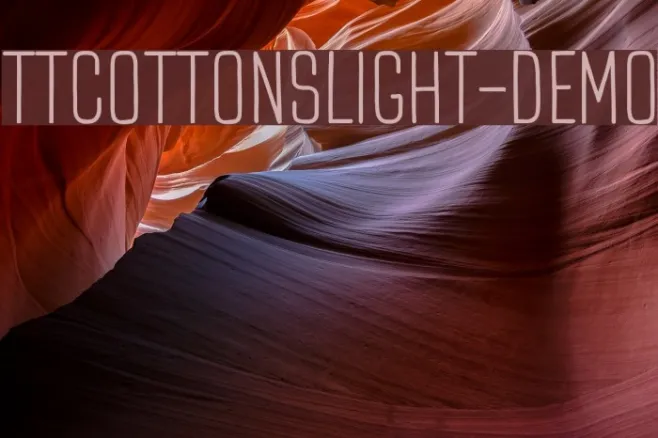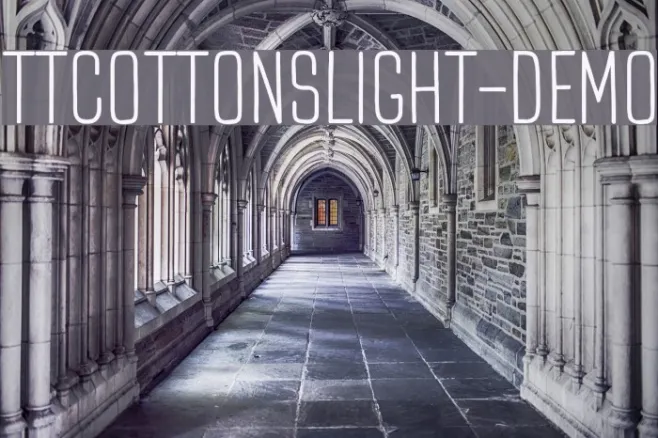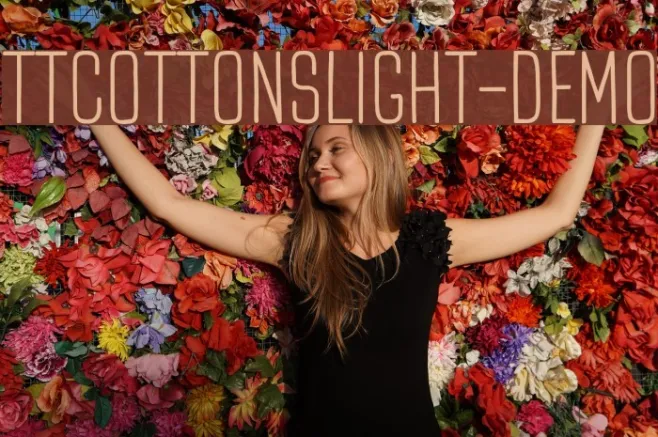
TTCottonsLight-DEMO Font
TTCottonsLight-DEMO Description
This font features a clean and modern sans-serif design with a light weight, making it ideal for a variety of applications. The characters are tall and narrow, giving it an elegant and sophisticated appearance. The uniform stroke width and minimal contrast contribute to its sleek and contemporary style. The spacing between characters is normal, ensuring readability while maintaining a refined look. This font is versatile, suitable for both digital and print media, and can be used effectively in branding, advertising, and editorial design.
| Proposed Projects | Ideal for branding, advertising, editorial design, and digital media. |